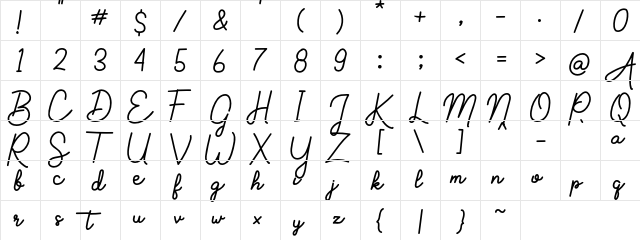
Aluria Regular
| Designer | jozgandoz 2018 |
Design Context for Aluria Typeface
Aluria is a composed and adaptable typeface that performs quietly and consistently across a wide range of design contexts.